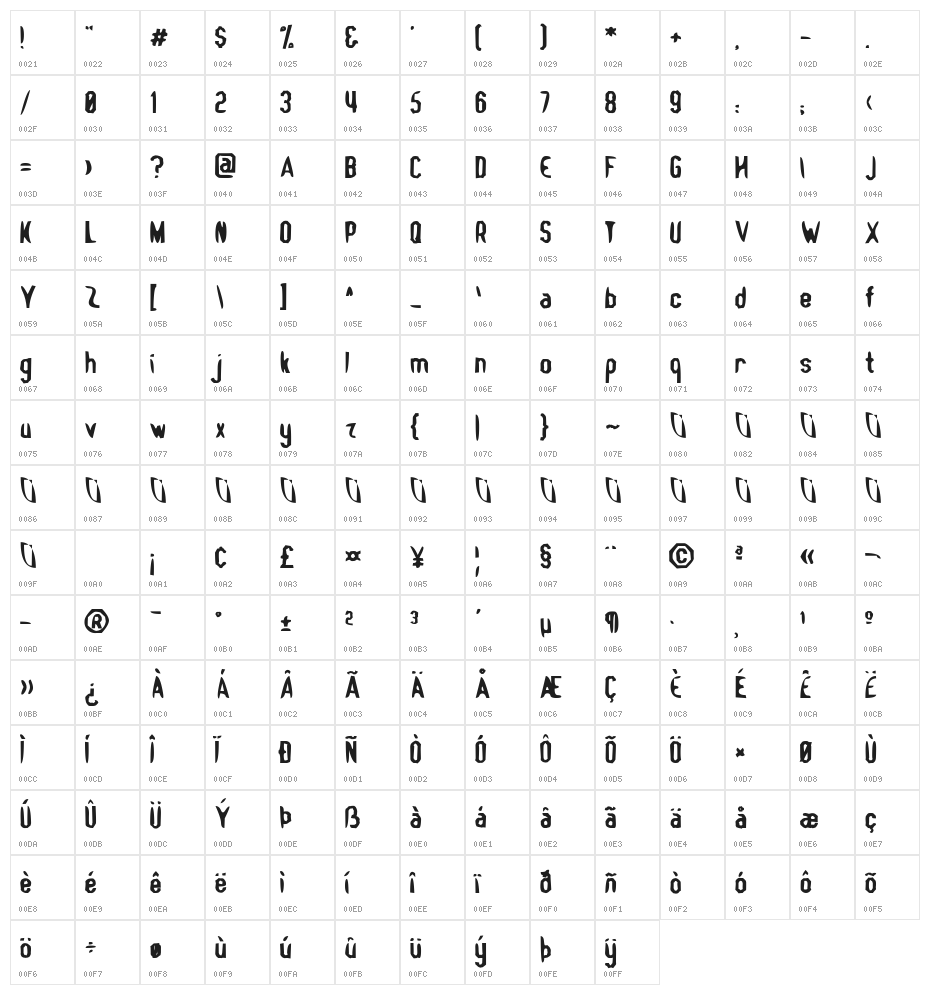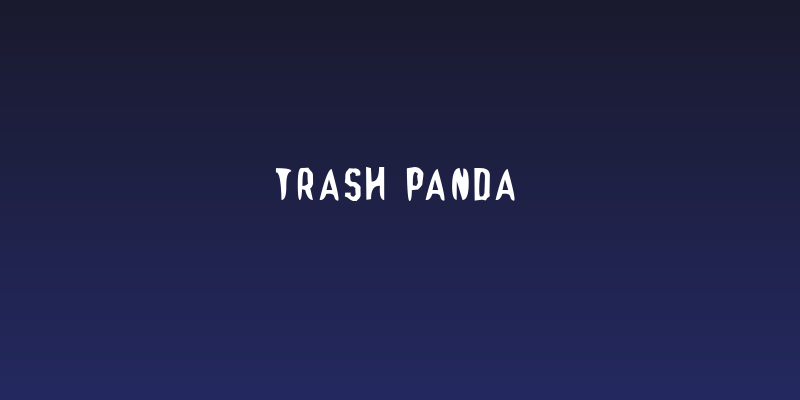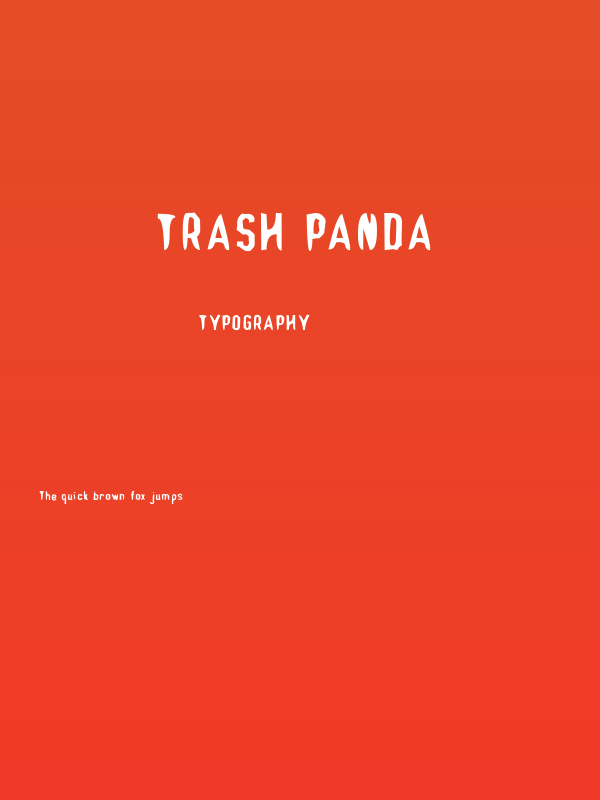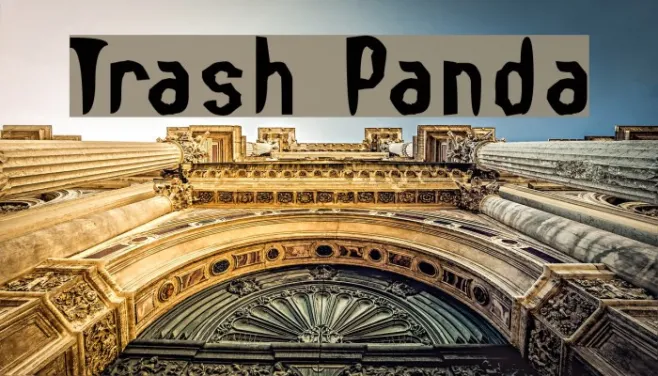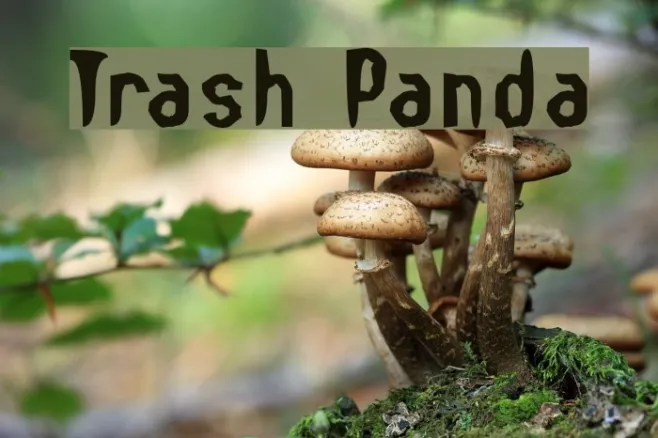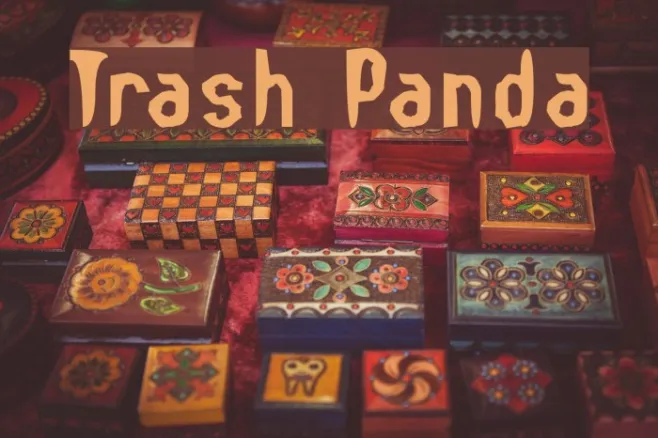
Trash Panda Font
Trash Panda Description
This font features a bold and playful design with a hand-drawn aesthetic. The characters are irregular and quirky, giving off a casual and artistic vibe. The uppercase and lowercase letters maintain a consistent style, with slightly uneven strokes that add to the charm. Numbers and special characters follow the same playful theme, making this font ideal for creative projects. The overall appearance is both unique and approachable, perfect for designs that require a touch of personality and flair.
| Overall Style | Playful, Artistic |
| Proposed Projects | Ideal for posters, children's books, greeting cards, and creative branding projects. |